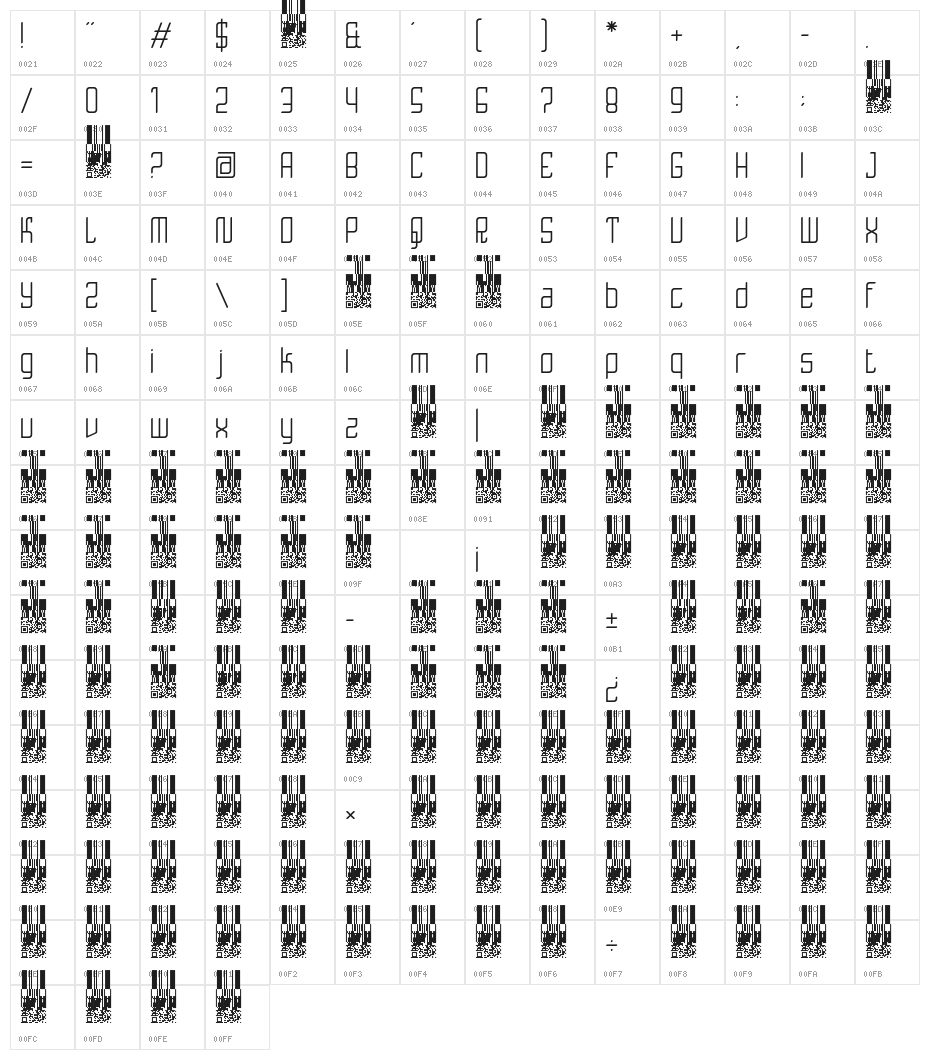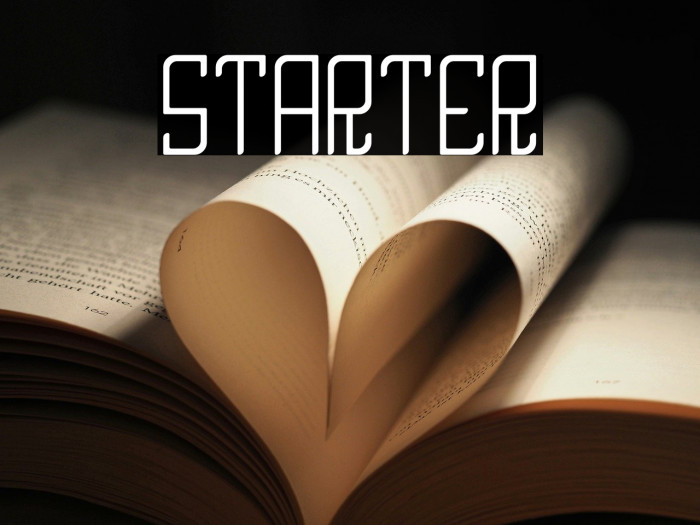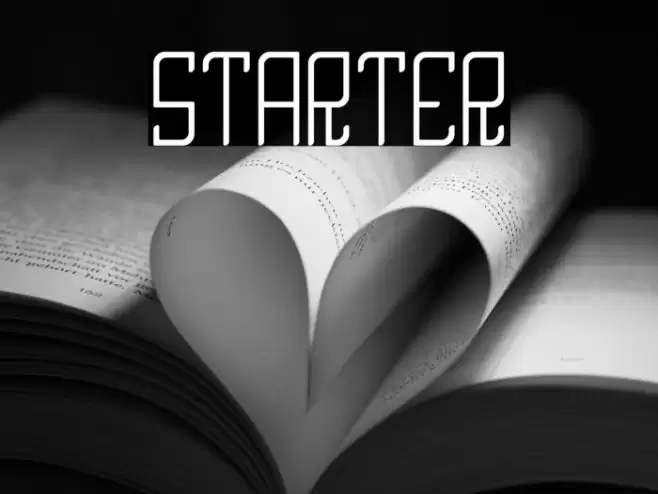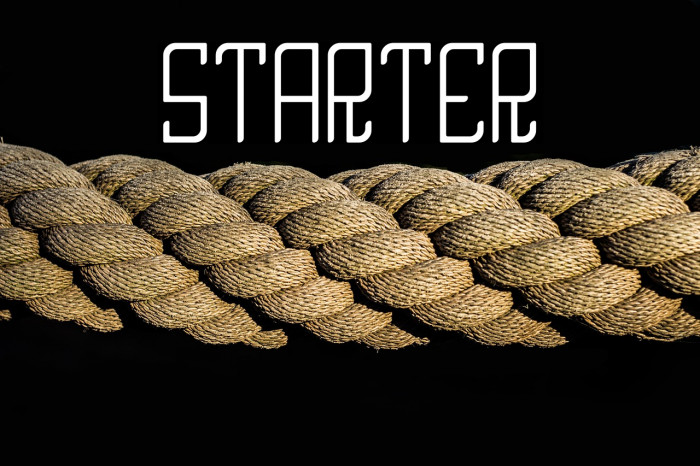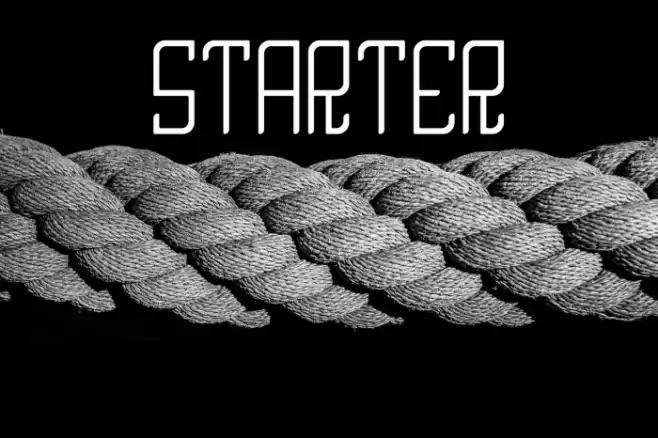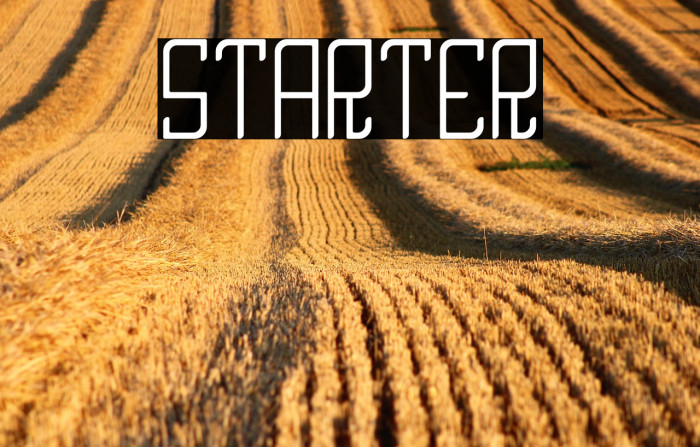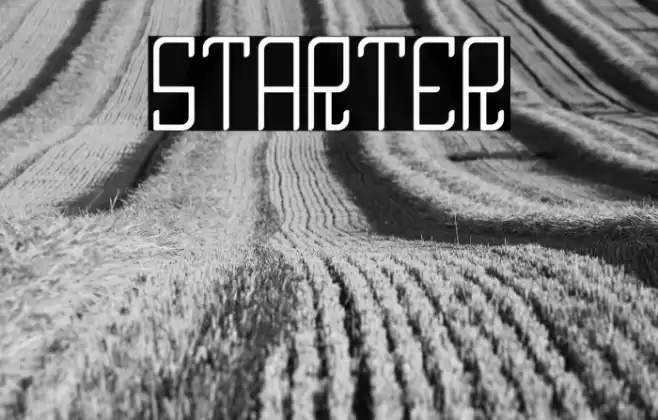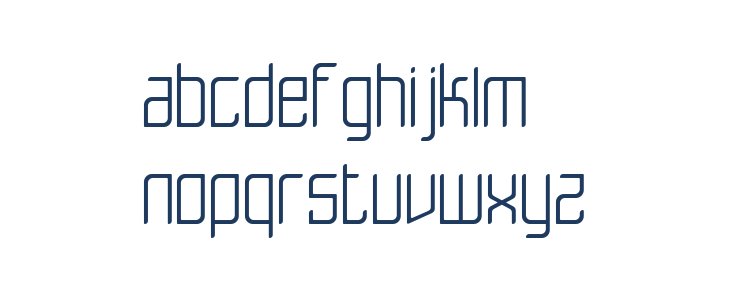
STARTER Font
STARTER Description
This font features a modern, geometric design with a distinctively futuristic feel. The characters are constructed with clean, straight lines and rounded corners, giving it a sleek and minimalistic appearance. The uppercase and lowercase letters maintain a consistent height, contributing to a uniform look. The numbers and special characters follow the same design principles, ensuring a cohesive style throughout. The font's structure is open and airy, with ample spacing between characters, enhancing readability. Its unique style makes it suitable for projects that require a contemporary and innovative touch.
| Use Case | Logos, Headlines, Digital interfaces |
| Proposed Projects | Ideal for tech branding, modern advertising, digital interfaces, and futuristic-themed designs. |